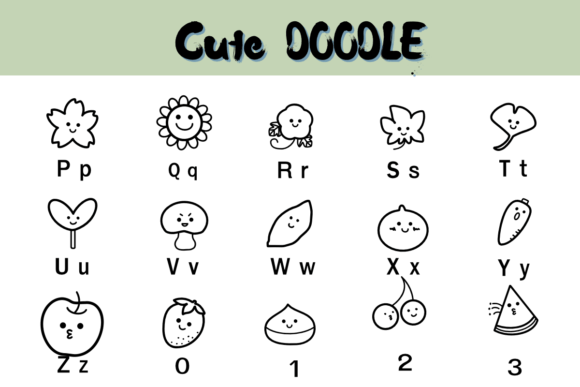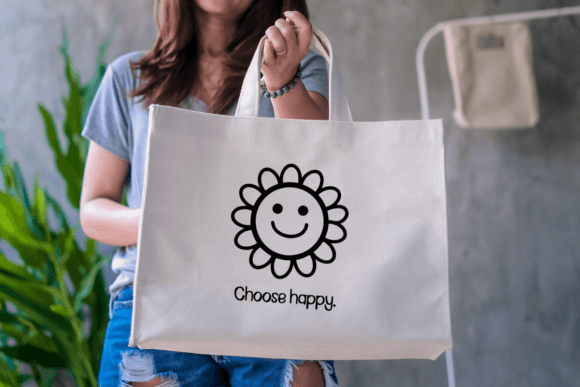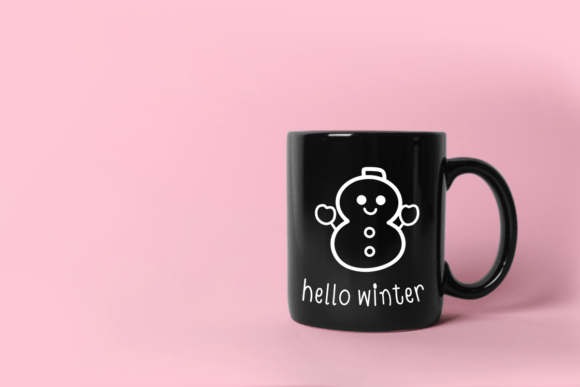
Cute Doodle Font
Cute Doodle is a delightful dingbats font filled with charming sketches and playful icons. From adorable shapes to whimsical objects, it offers a diverse collection of doodles perfect for adding fun accents to designs. With its lively and quirky style, Cute Doodle infuses creativity and joy into any project.